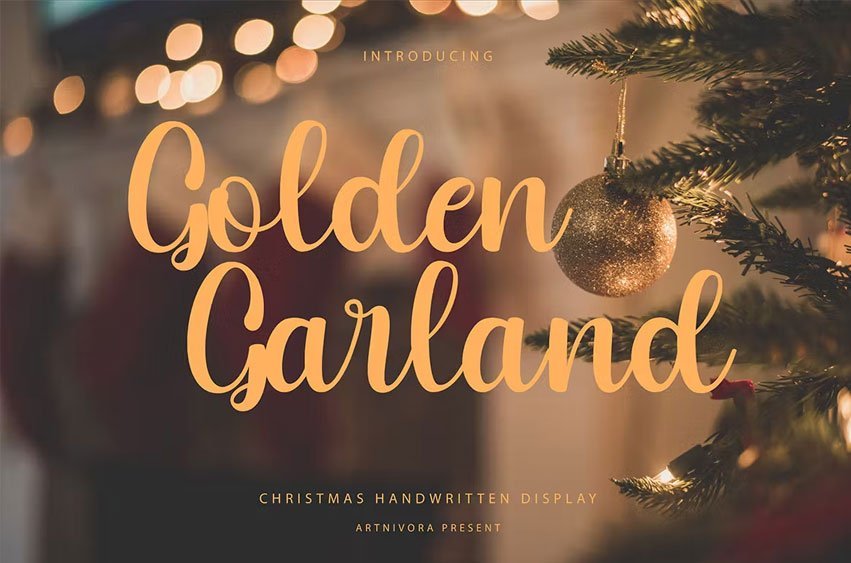
Golden Garland Font is a simple and handwritten font. So perfect for you who needs a typeface for logo designs, magazine, social media, brochure, and many more.